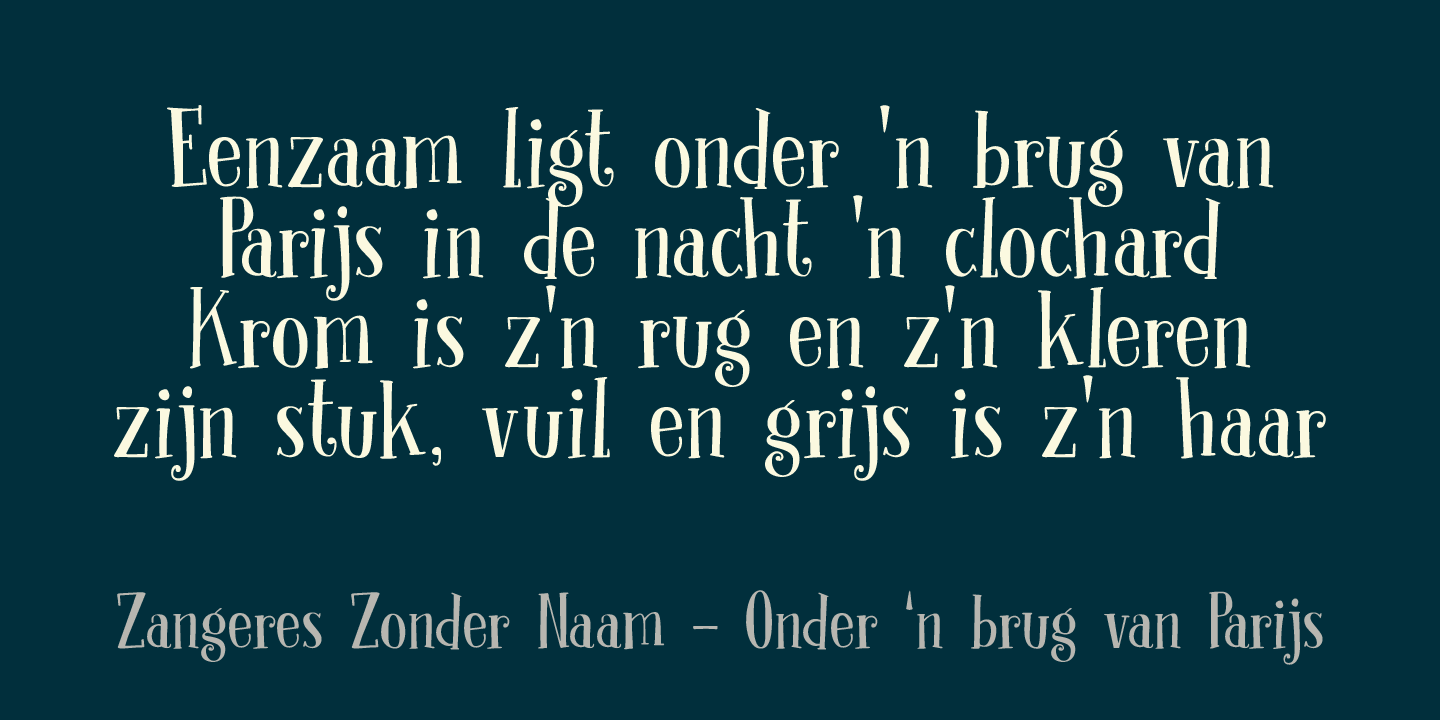
CS Brela Drawn Font
CS Brela Drawn Font – Elegant Serif with Playful Sophistication Elegant Serif with Casual, Handcrafted Charm. This is an elegant serif font designed with simple, well-balanced letterforms and a subtle drawn finish. Its clean structure ensures excellent readability, while the handcrafted texture softens the overall look, giving the font a relaxed and approachable personality. This blend of refinement and warmth creates a serif that feels stylish and elegant without becoming stiff or overly formal.